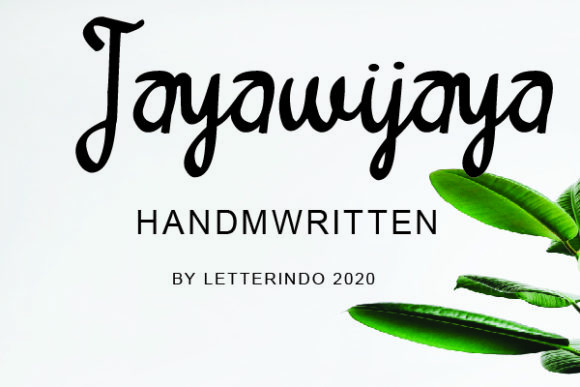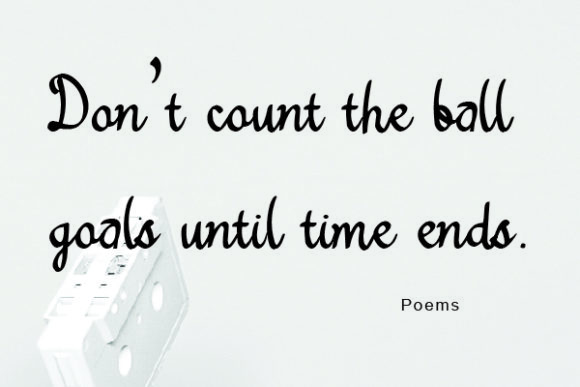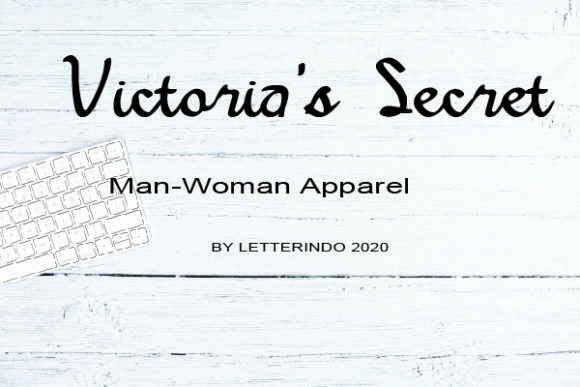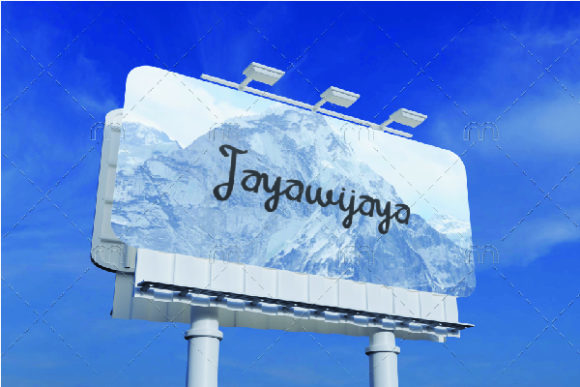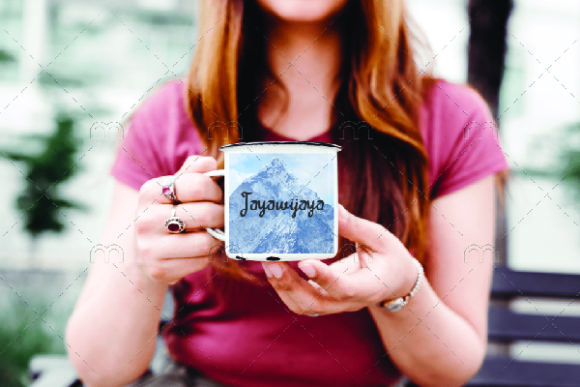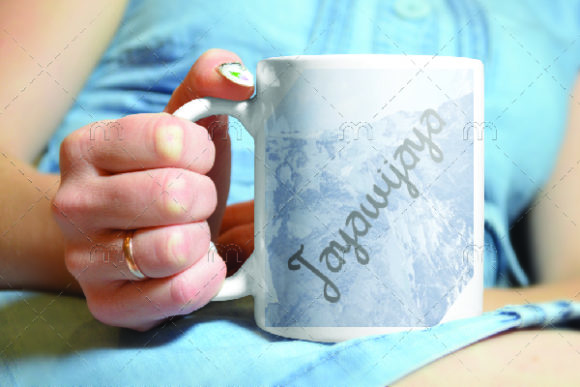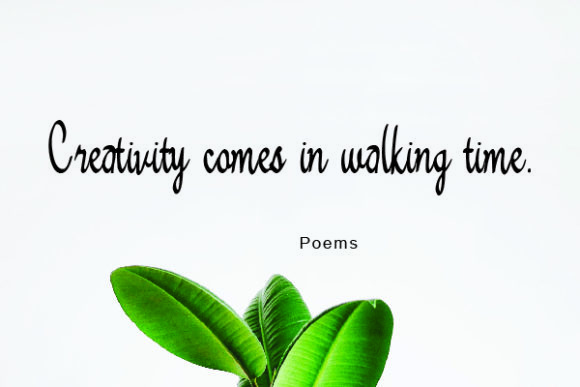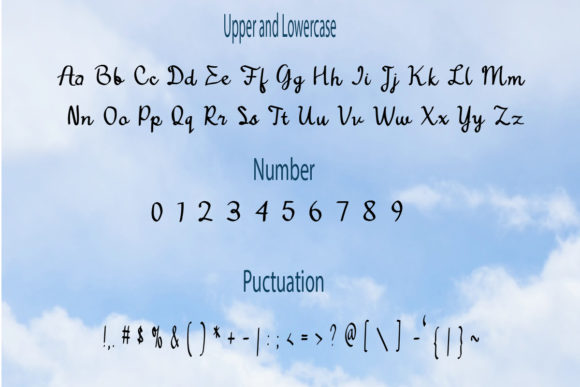
Jayawijaya Font
About Jayawijaya Font
Jayawijaya is an exquisite handwritten font created with the help of a brush pen. With a neat and simple calligraphy, this font is incredibly versatile and will give a spectacular look to your design projects!